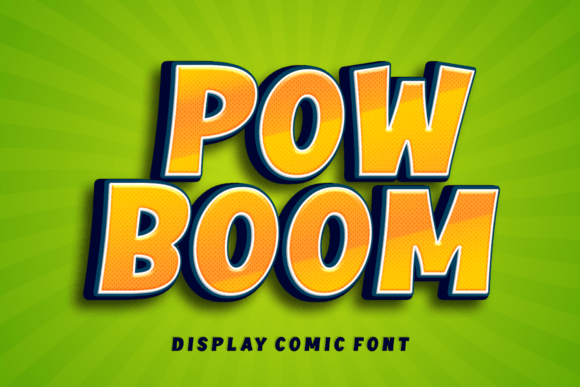
Unleash your creative spirit and let your designs explode with Pow Boom Font - the ultimate comic-style display font that's set to revolutionize your design projects. This remarkable font family, brought to you by the renowned Creative Fabrica Fonts, is carefully crafted to capture the essence of dynamic comic books, injecting a touch of playful energy into your creations.
Prepare to be captivated by Pow Boom Font's robust and adaptable nature. Its thick, impactful strokes command attention and add a touch of drama to headlines, titles, and book covers. Its versatility extends beyond print media, making it an ideal choice for advertising materials, packaging, and a myriad of digital designs.
With Pow Boom Font, you hold the key to unlocking a world of creative possibilities. Its unique style effortlessly elevates your designs, giving them a distinct and memorable character. Let your imagination run wild as you craft captivating posters, eye-catching social media graphics, and logos that leave a lasting impression on your audience.
**Dive into the world of Pow Boom Font and discover its captivating features:**
* **Comic-Style Charm:** Imbue your designs with the playful essence and dynamic energy of comic books. Pow Boom Font's distinct style adds a touch of whimsy and fun to any project.
* **Unmatched Versatility:** Unleash your creativity across various mediums. Pow Boom Font seamlessly adapts to headlines, titles, book covers, advertising materials, packaging, and digital designs.
* **Bold and Impactful:** Make a statement with every stroke. Pow Boom Font's thick and adaptable characters demand attention and leave a lasting impression on your audience.
* **Effortless Customization:** Tailor Pow Boom Font to match your unique vision. Experiment with different colors, sizes, and effects to create designs that truly reflect your style.
**Step into the world of Pow Boom Font today and embark on a design adventure like never before!**